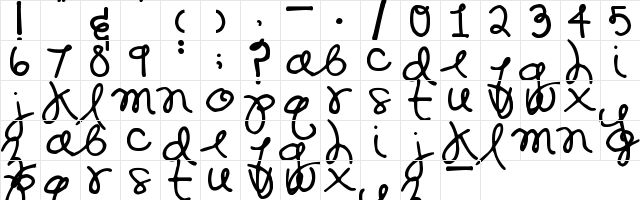
Hula Skirt Girl Regular
Design Context for Hula Skirt Girl Typeface
Hula Skirt Girl is a composed and adaptable typeface that performs quietly and consistently across a wide range of design contexts.
Pro Tip: Use Hula Skirt Girl in both headline and body roles to test its range before committing to a single application.